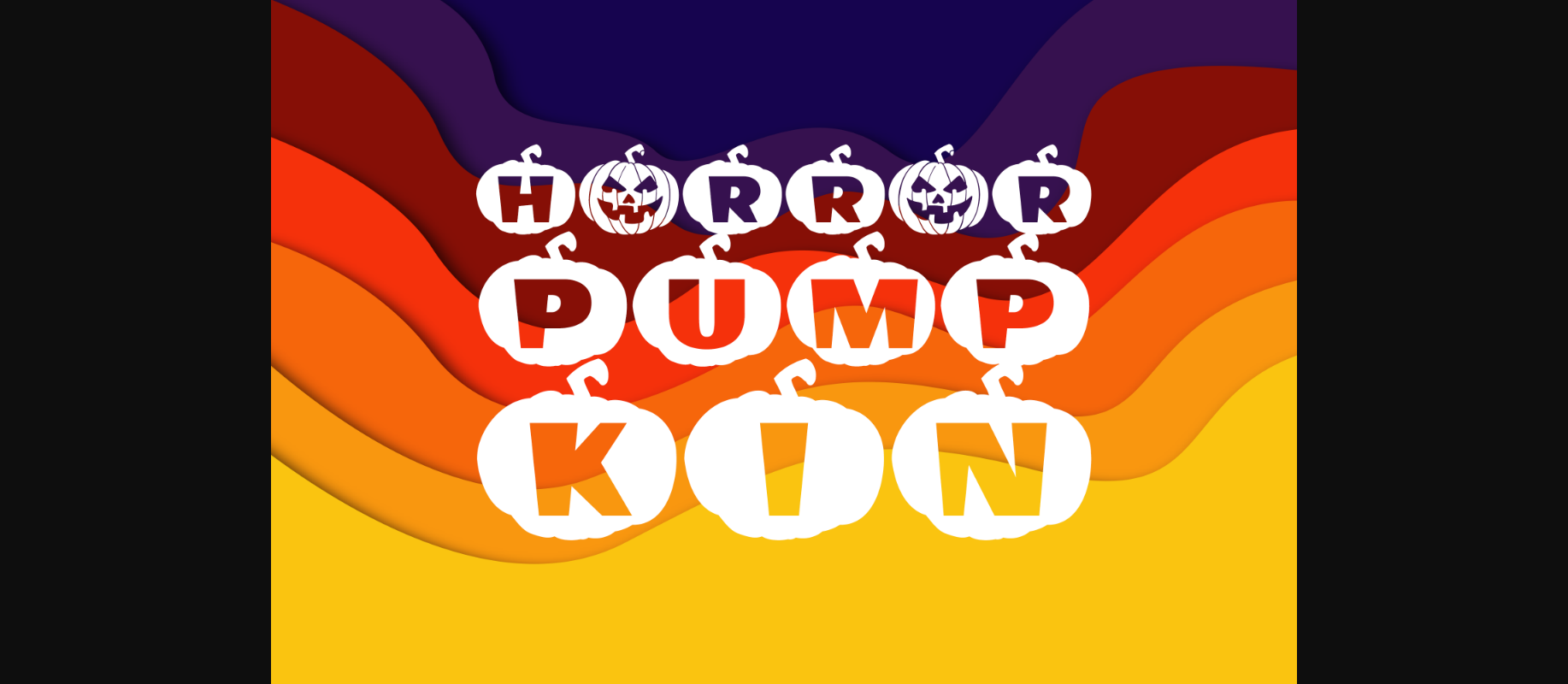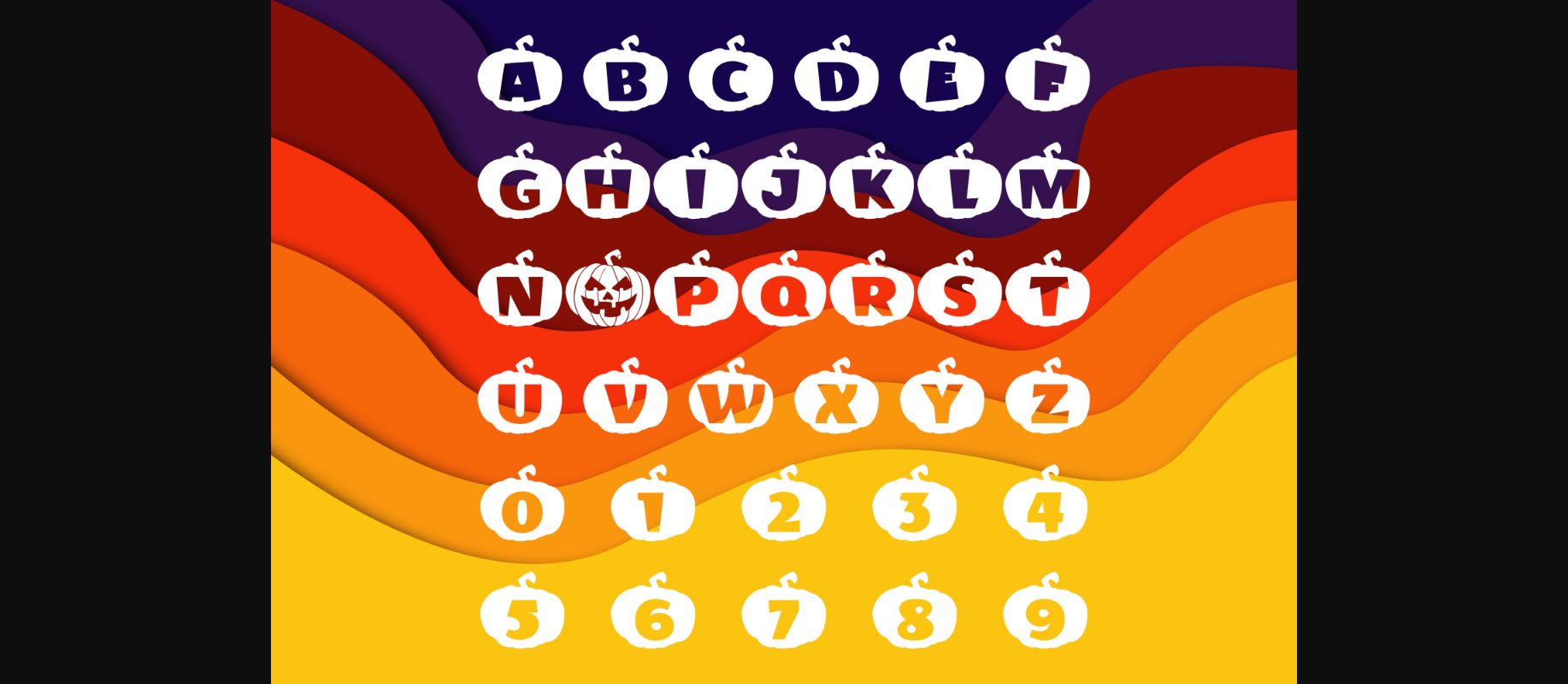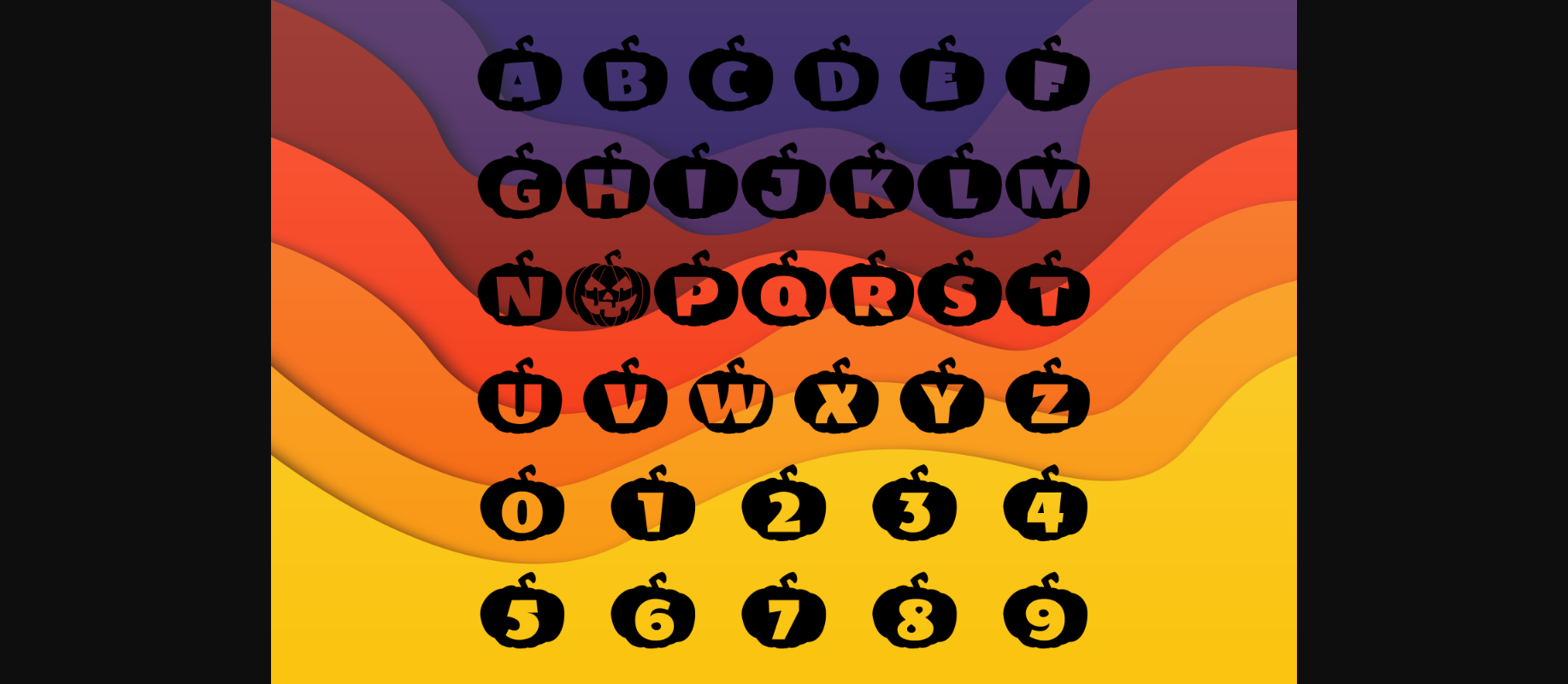
About Horror Pumpkin Font
Horror Pumpkin is an incredibly cool and spooky decorative font. Add it to each of your Halloween designs, and they will instantly stand out.